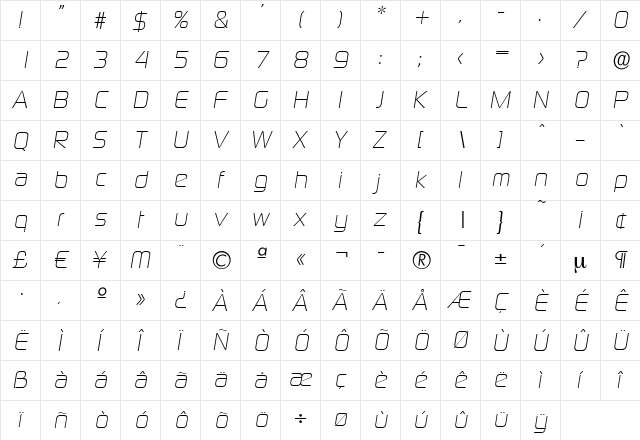
RandyBecker Italic Font Preview
RandyBecker Italic
RandyBecker Italic Font Details
Design Context for RandyBecker Typeface
RandyBecker takes a measured approach to typography — its balanced proportions and neutral character make it a reliable workhorse for both digital and print work. The slanted form adds forward momentum and visual energy.
Pro Tip: Try RandyBecker for annotation and caption copy alongside an upright companion — the contrast in angle creates a dynamic but ordered typographic system.